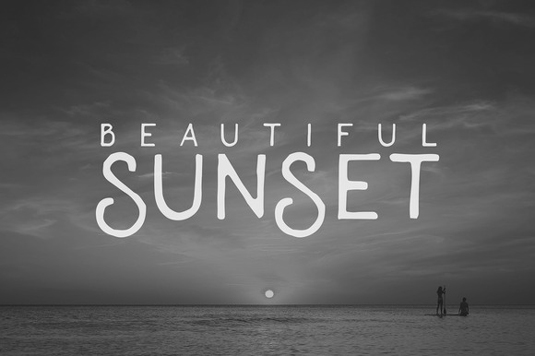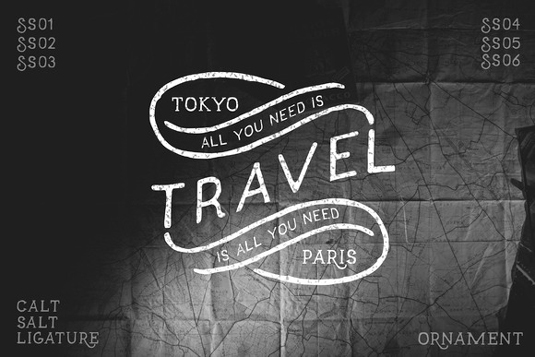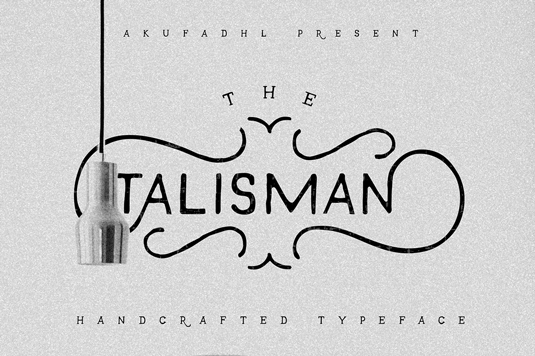
Font of the day: Talisman
Talisman by Aku Fadhl
Talisman is a handcrafted typeface by designer Aku Fadhl, great for stationery, logos and much more. You can download a free for personal use version here, or purchase the full family over on Creative Market.